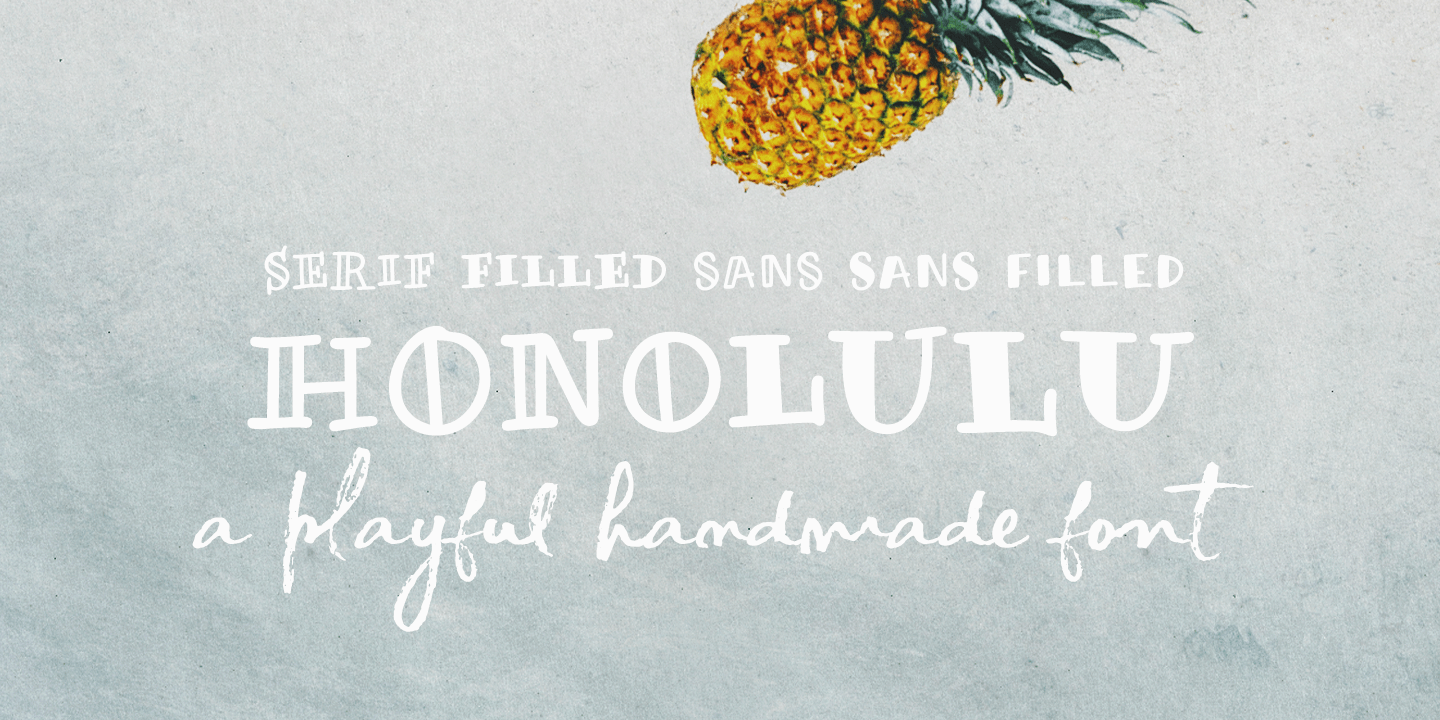
Honolulu Font is a wonderfully vibrant and enchanting typeface, perfect for designs that aim to capture a tropical, playful, or exotic feel. Imagine it bringing a sunny and inviting touch to the branding of a beachside resort, adding a delightful, whimsical element to invitations for a summer party, or providing a genuine, handcrafted look to packaging for island-inspired goods. Its often fluid forms, decorative flourishes, and a hint of hand-drawn character make it ideal for creative digital content, travel brochures, and any print materials where a sense of warmth, relaxation, or artistic individuality is desired. From a lively food truck menu to a vibrant social media campaign, this font infuses designs with personality and a memorable, joyful quality.
Why Honolulu Font is So Exciting
What makes Honolulu Font so exciting is its ability to instantly transport the viewer to a place of warmth and relaxation. It often features playful curves, unique ligatures, and a distinctly personalized touch that evokes the laid-back charm and natural beauty of a tropical paradise. This isn't a rigid or formal font; its power lies in its ability to inspire joy, spontaneity, and a touch of adventurous spirit. It can make any text it's applied to feel more engaging and intimate, instantly drawing in the viewer with its amiable aesthetic. This distinct character and its evocative nature are what truly set Honolulu Font apart.
Honolulu Font Family
The Honolulu Font family typically focuses on delivering its unique, expressive style with charm and consistency. While it might not have an extensive range of traditional weights like a versatile sans-serif, you can generally expect to find a finely crafted Regular weight, often accompanied by bold versions or stylistic alternatives that further enhance its distinctive aesthetic. These variations are designed to provide flexibility within its specific style, allowing designers to create compelling headlines, subheadings, and decorative elements that maintain the font's endearing and charming appeal across different applications.
For those seeking a font that delivers a genuine, cheerful feel and a distinctive, whimsical aesthetic, Honolulu Font Free Download offers a wonderful opportunity to explore its charming capabilities. Its unique character and compelling appeal make it a superb choice for projects that aim to feel authentic and visually engaging.